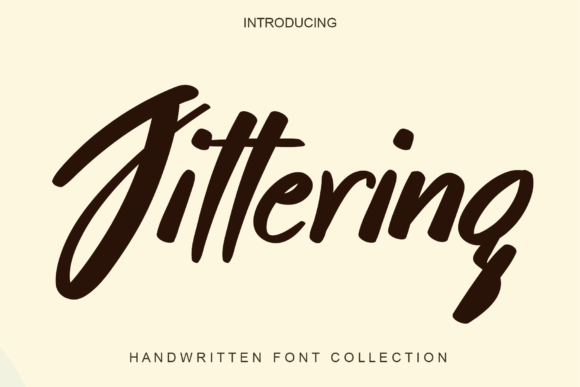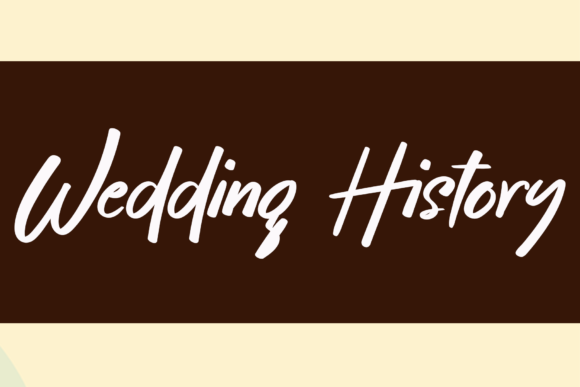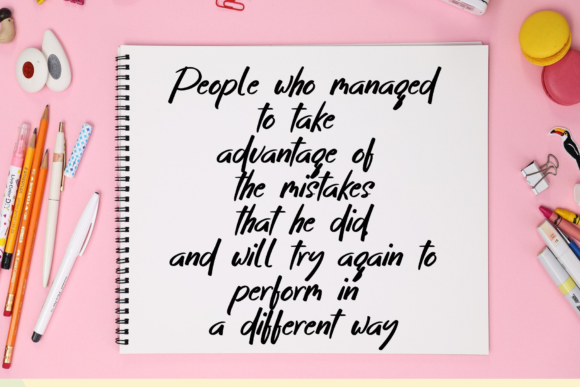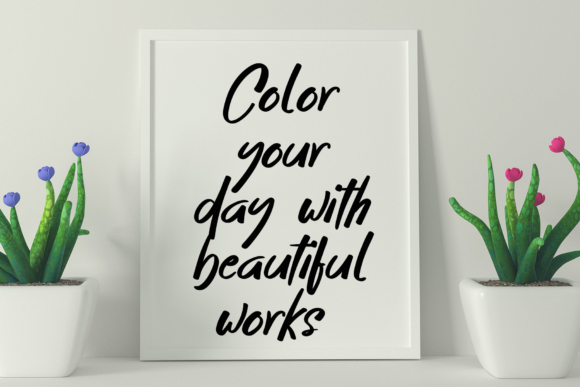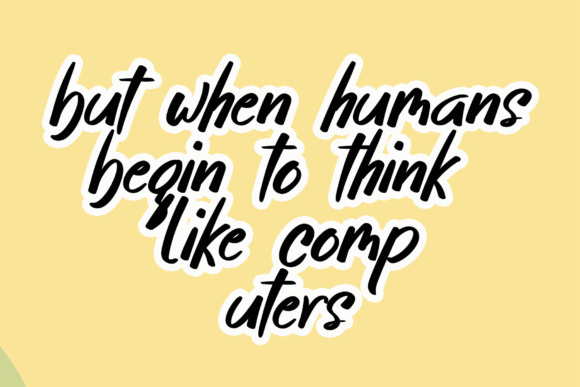
Jittering Font
About Jittering Font
Introducing Jittering, a lovely and timeless script font meticulously crafted to bring a unique and beautiful touch to your creative projects. This font is the optimal choice for creating eye-catching logos, branding designs, and impactful quotes, adding a touch of elegance to your visual creations.
The charm of Jittering lies in its script style, which exudes both loveliness and timelessness. Each letter is crafted with precision, ensuring that every character contributes to the overall beauty of your design. Whether you’re working on a logo that demands attention or creating a memorable quote, Jittering brings your design to life with its distinctive and charming aesthetic.
Picture Jittering becoming the centerpiece of your branding, infusing your logo and designs with a touch of sophistication. Its timeless appeal ensures that your visual identity stands out, leaving a lasting impression on your audience.
As you delve into the world of Jittering, envision each letter as a brushstroke in a beautiful canvas of design. The script’s fluidity and uniqueness enhance the overall elegance, making it a versatile font for various applications. From impactful branding to inspiring quotes, Jittering elevates your creative projects with its timeless charm.
Embrace Jittering as the font that breathes life into your designs, making them come alive with every stroke. Let its lovely and timeless script be the defining element that transforms your logos, branding, and quotes into visual masterpieces.